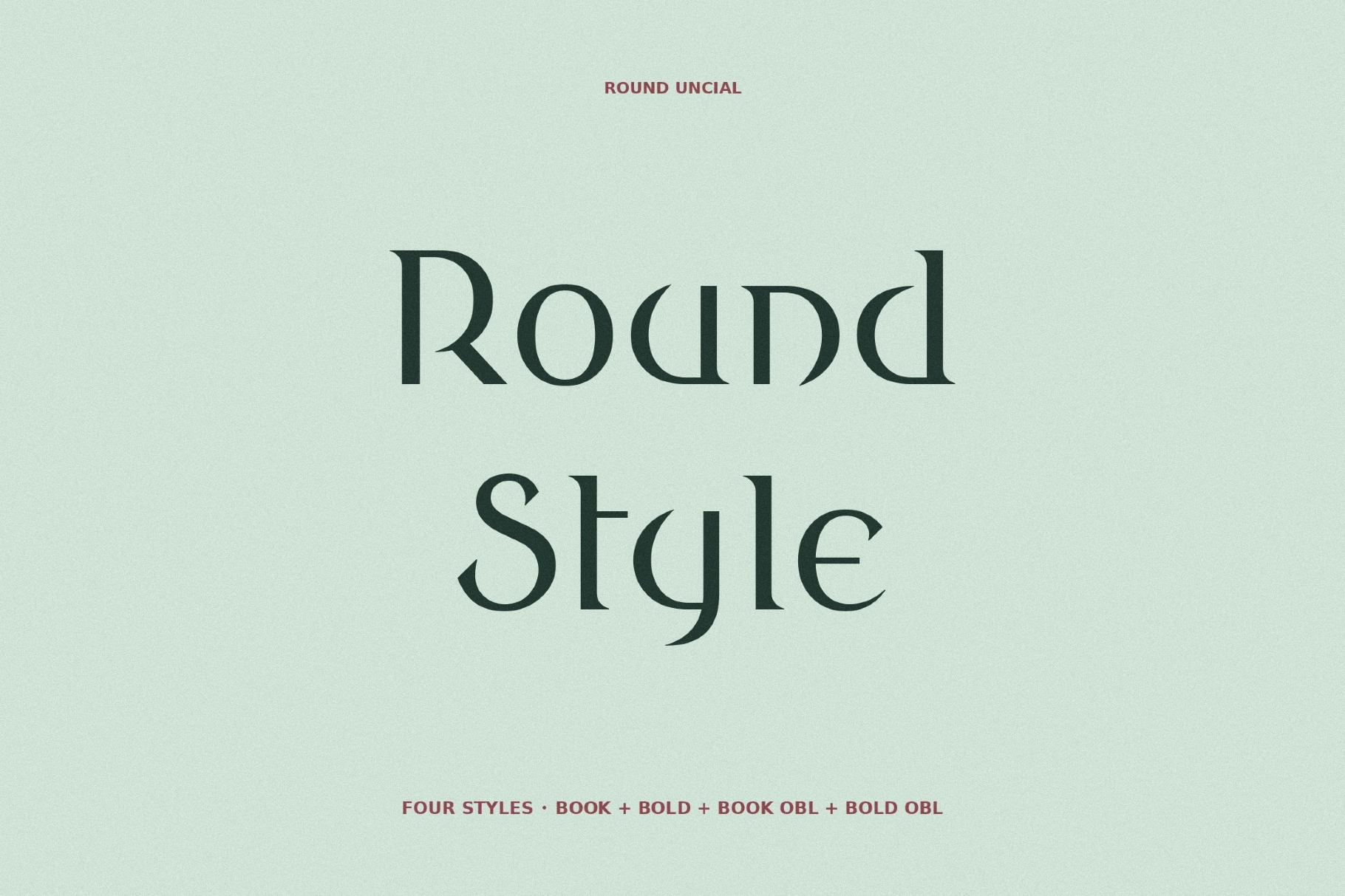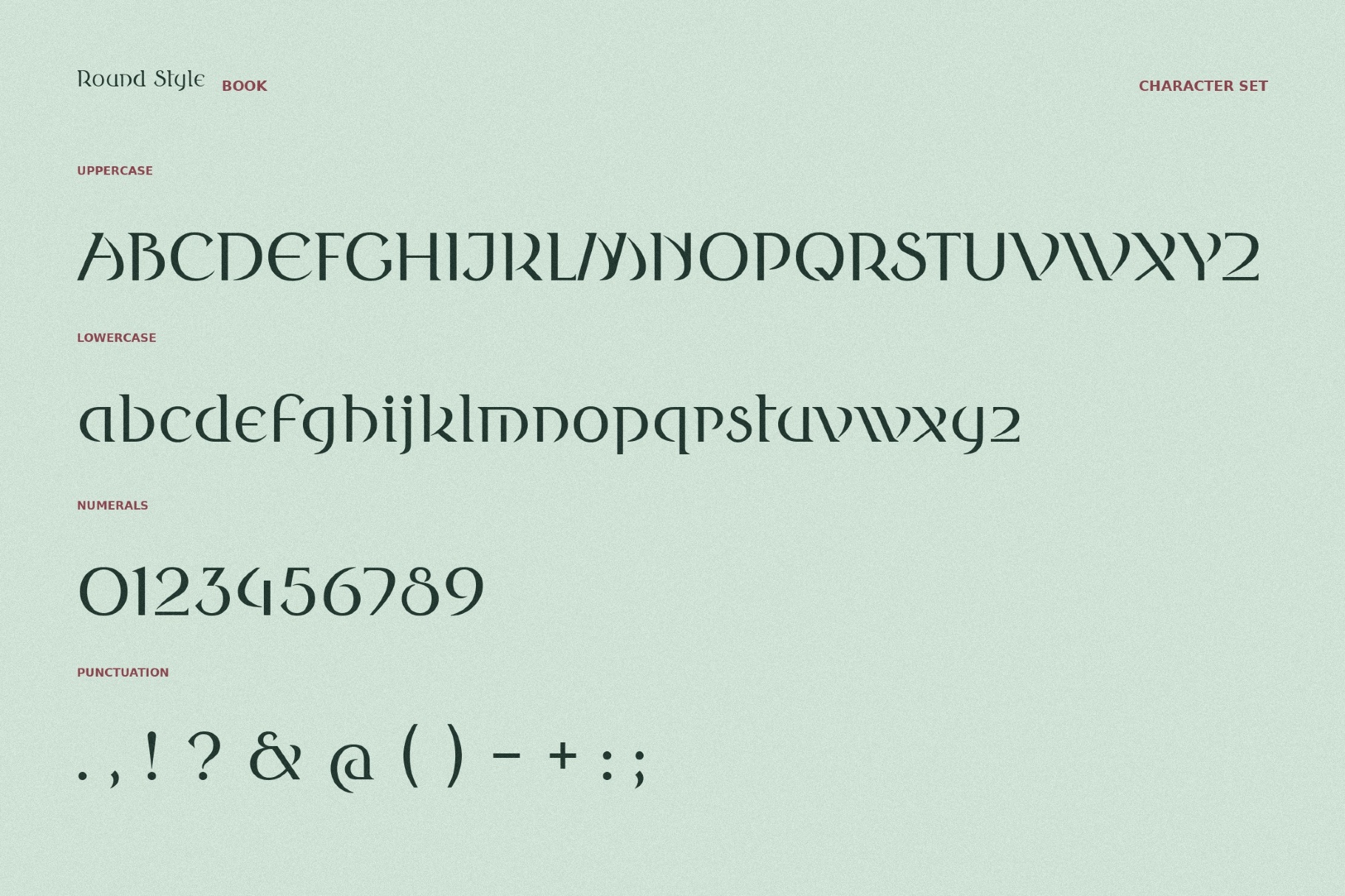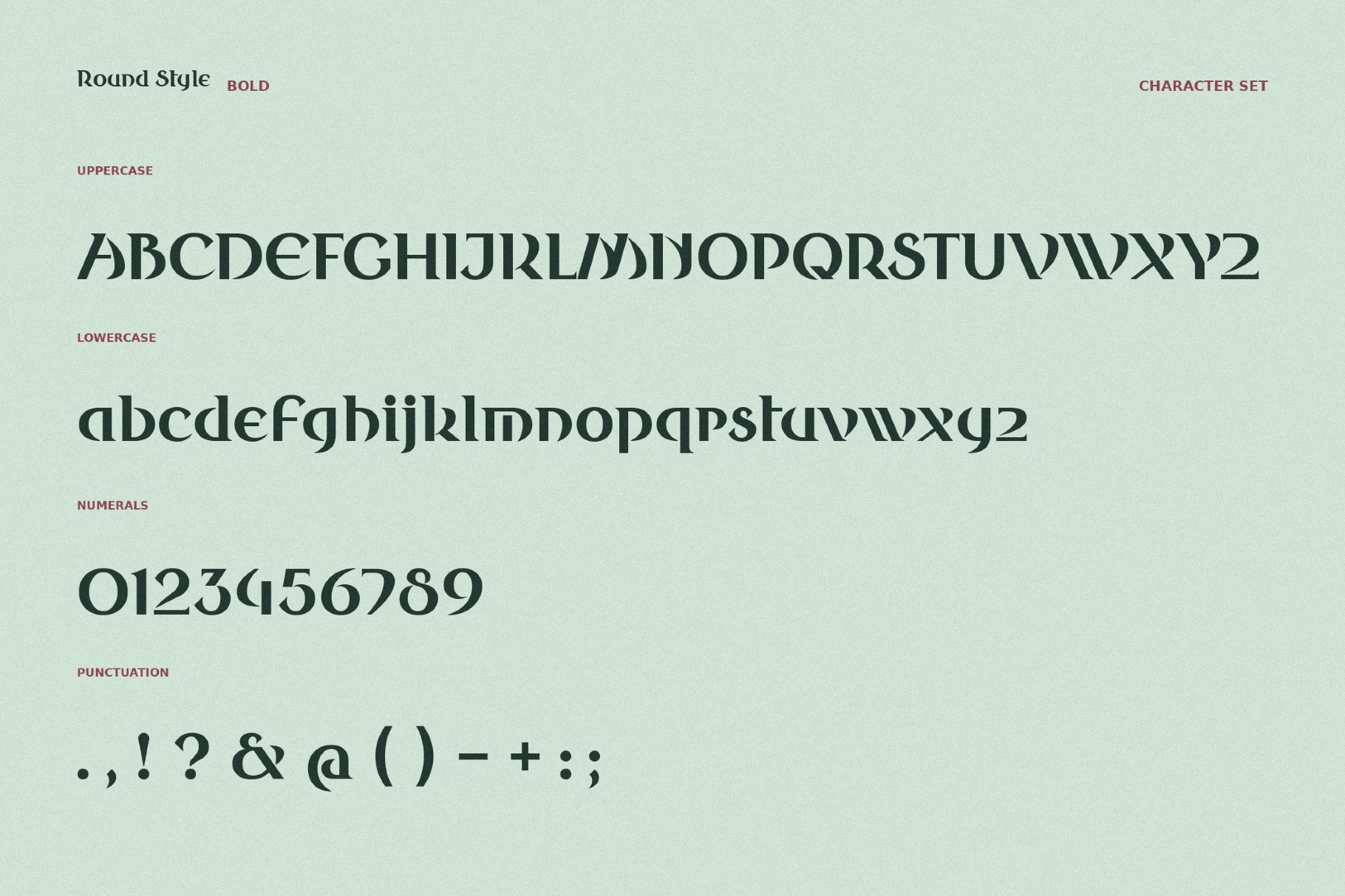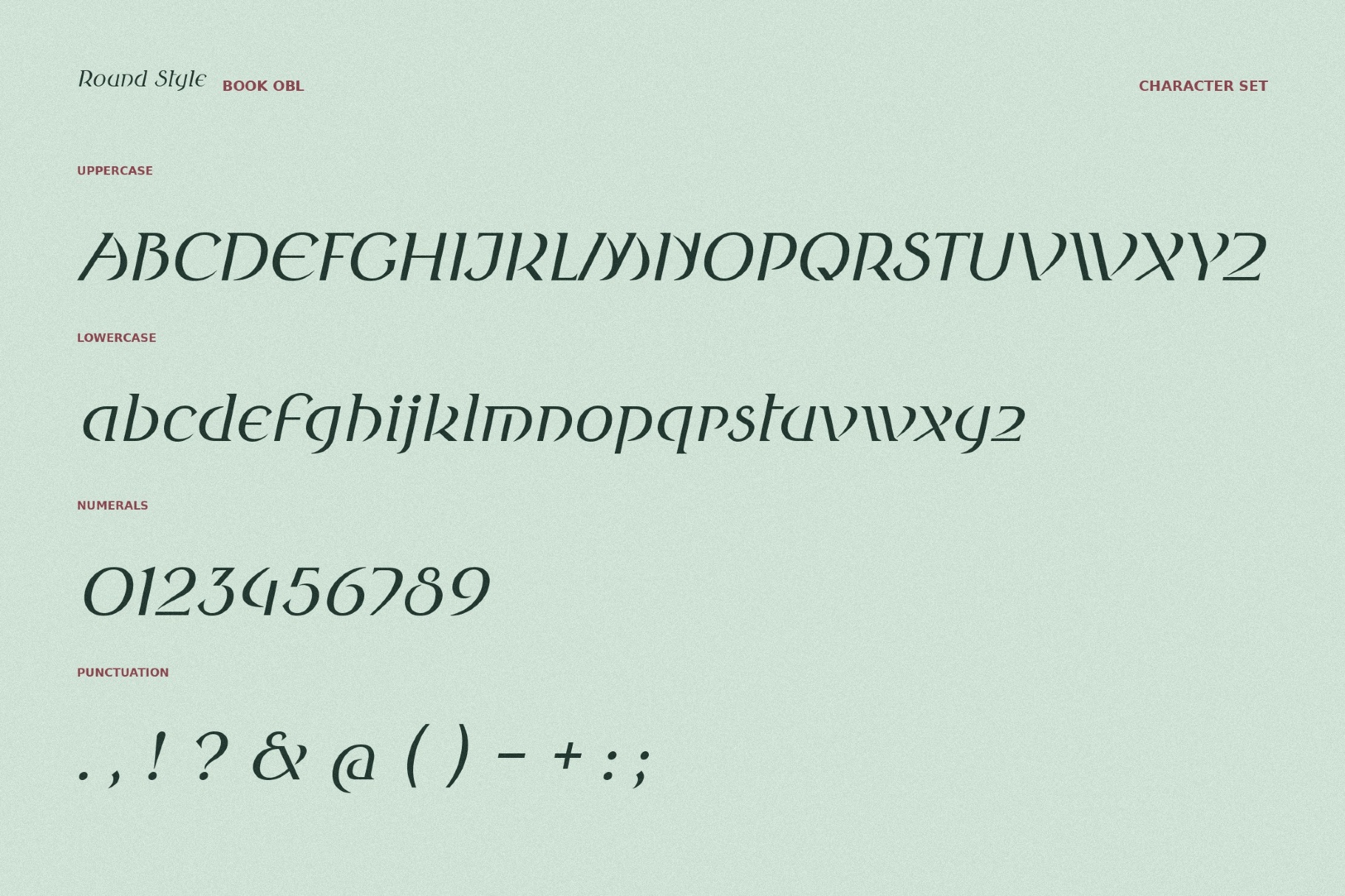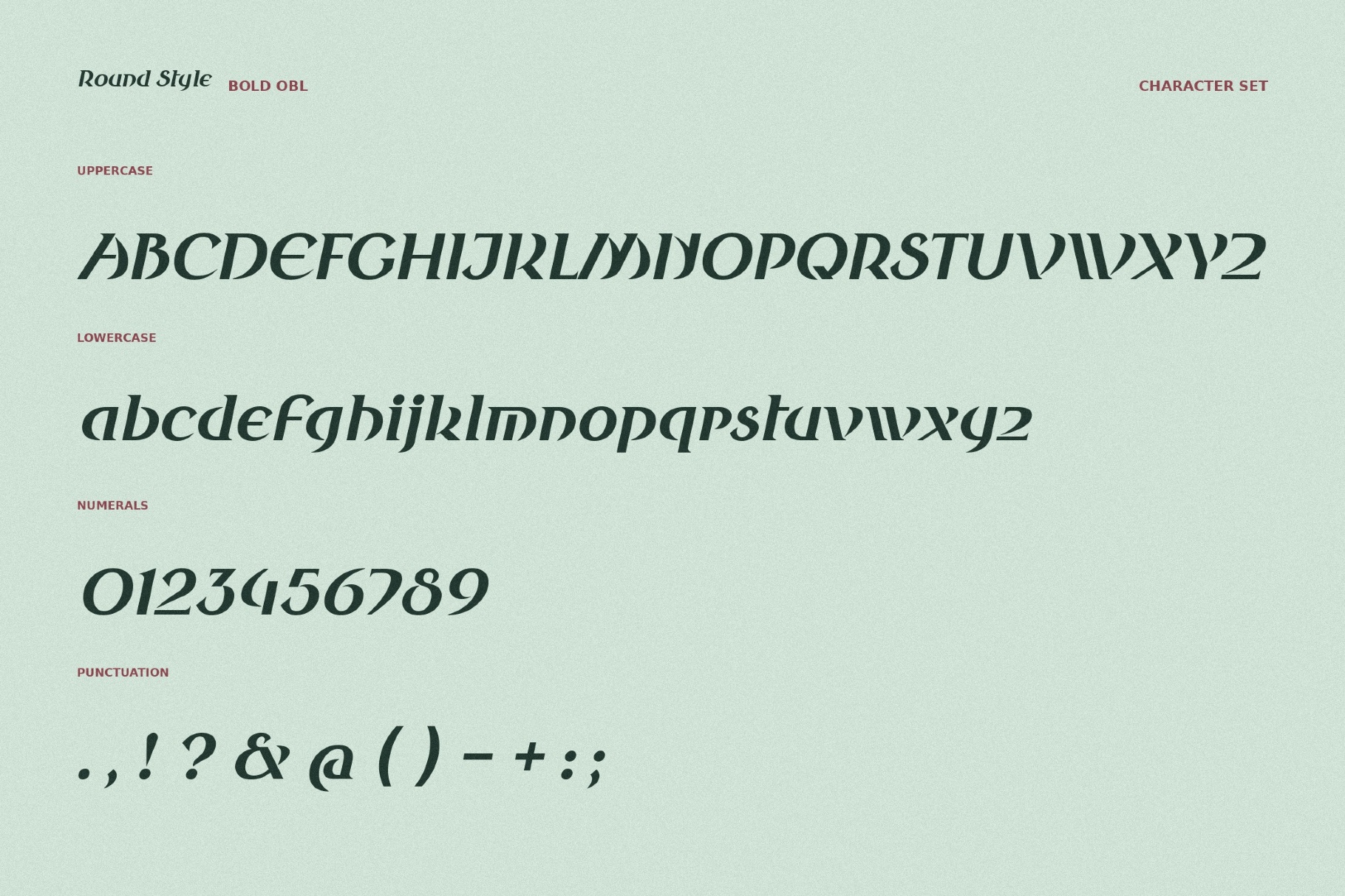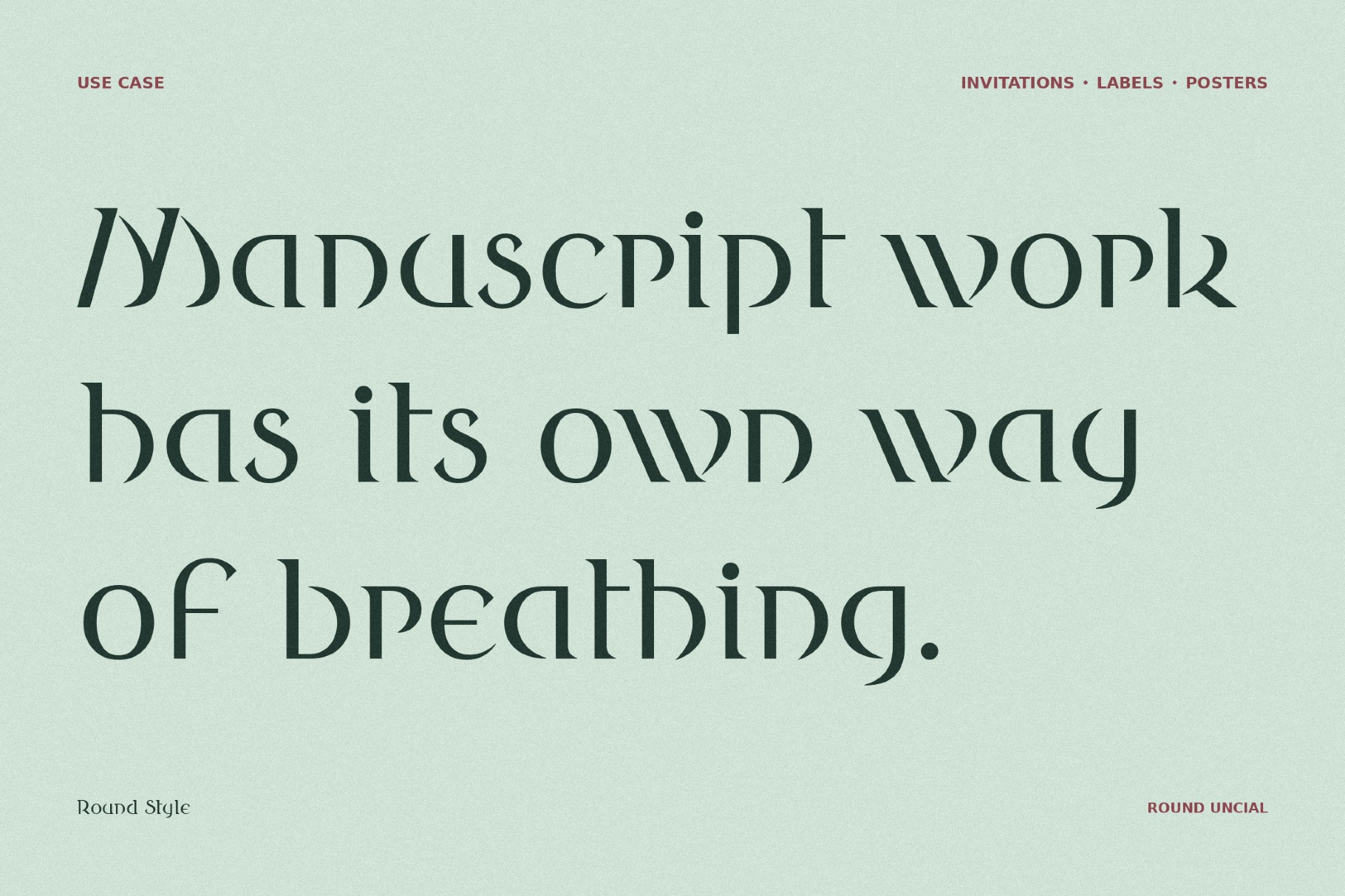
Round Style Fantasy Typeface
Round Style is a classical fantasy font where serif discipline meets circular ornament and a quiet experimental streak. Its rounded forms, inscriptional rhythm, and refined geometric logic suggest Art Nouveau lettering, Renaissance stone text, and academic book covers.
It is a good choice for everything with fresh intellectual tension: editorial titles, museum graphics, exhibition posters, cultural branding, wine labels, stationery, book covers, boutique packaging, and identity systems.
- 4 styles: Bold, BoldOblique, Book, and BookOblique;
- uppercase and lowercase letters;
- numbers, punctuation, and symbols;
- multilingual support across the extended Latin script;
- ligatures.